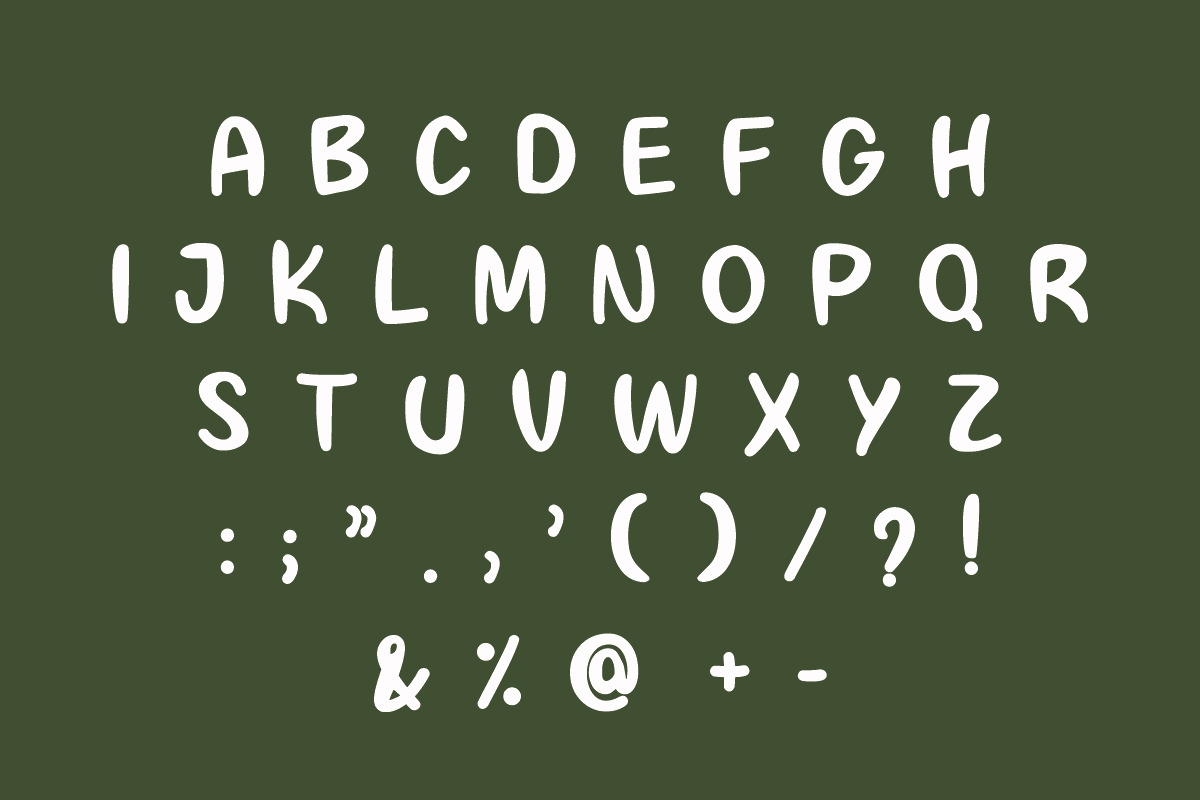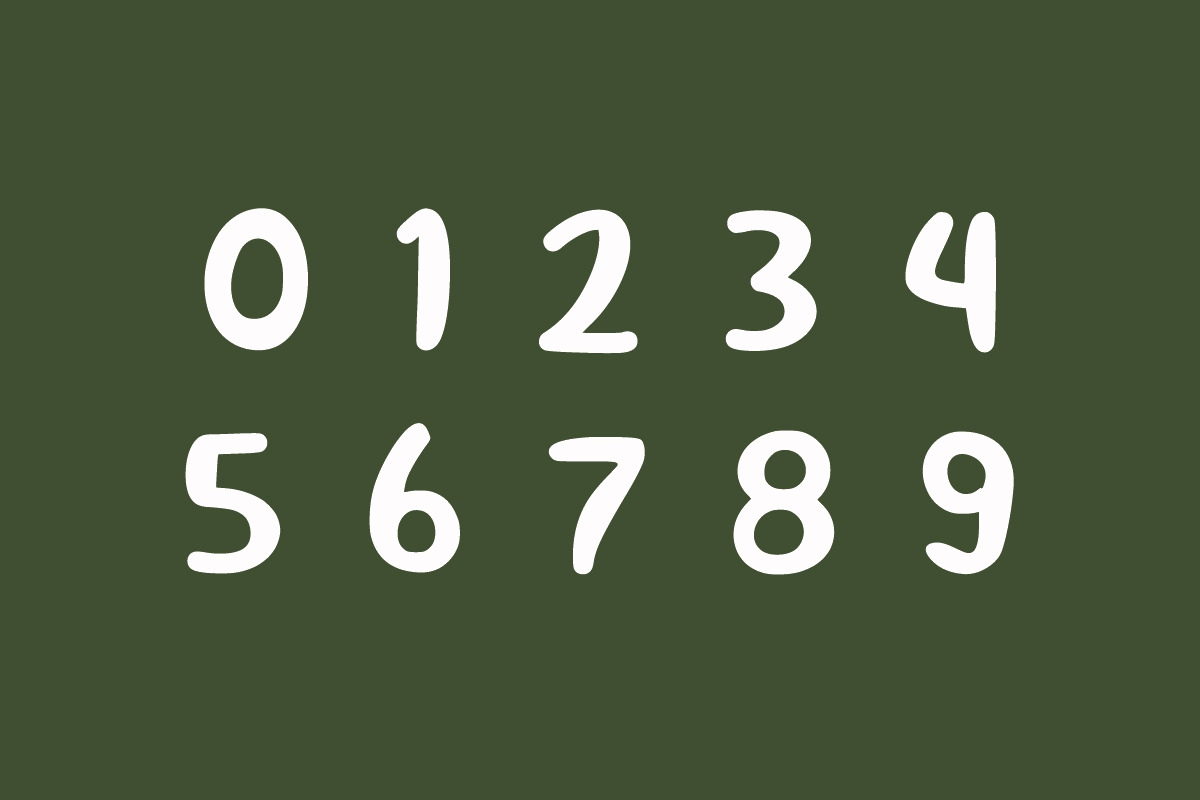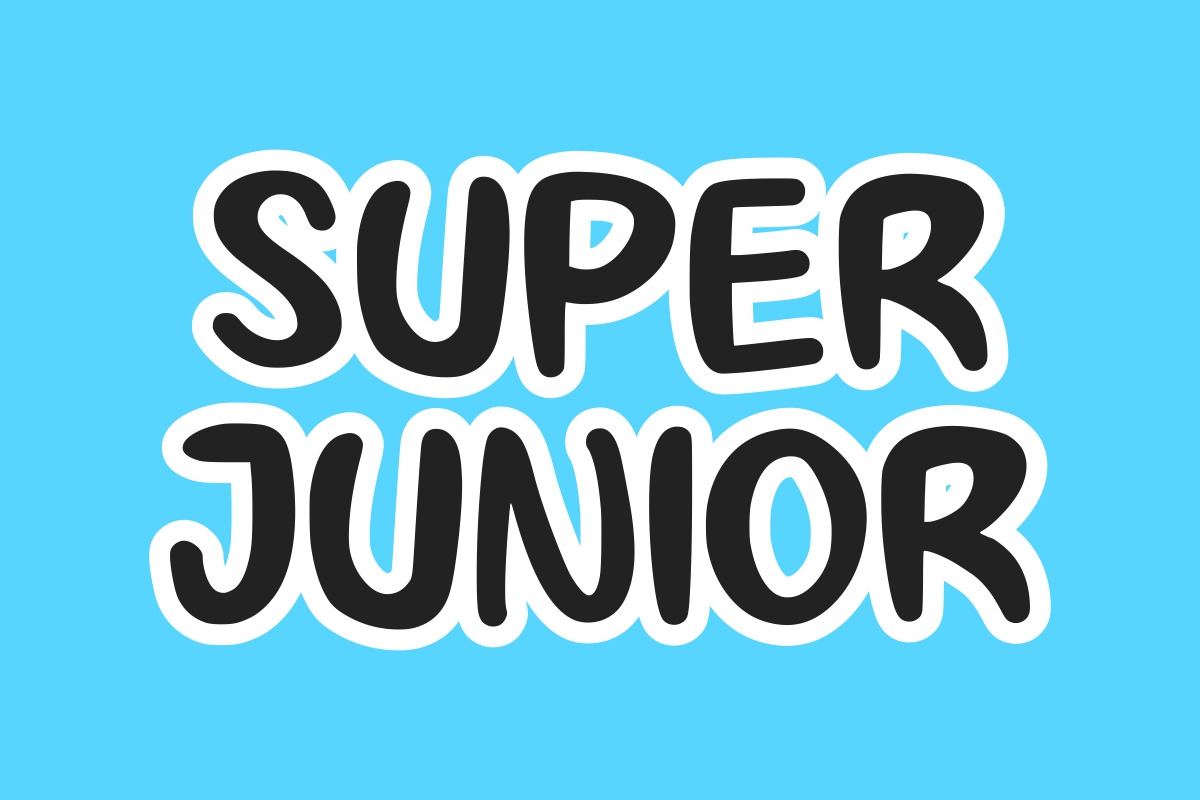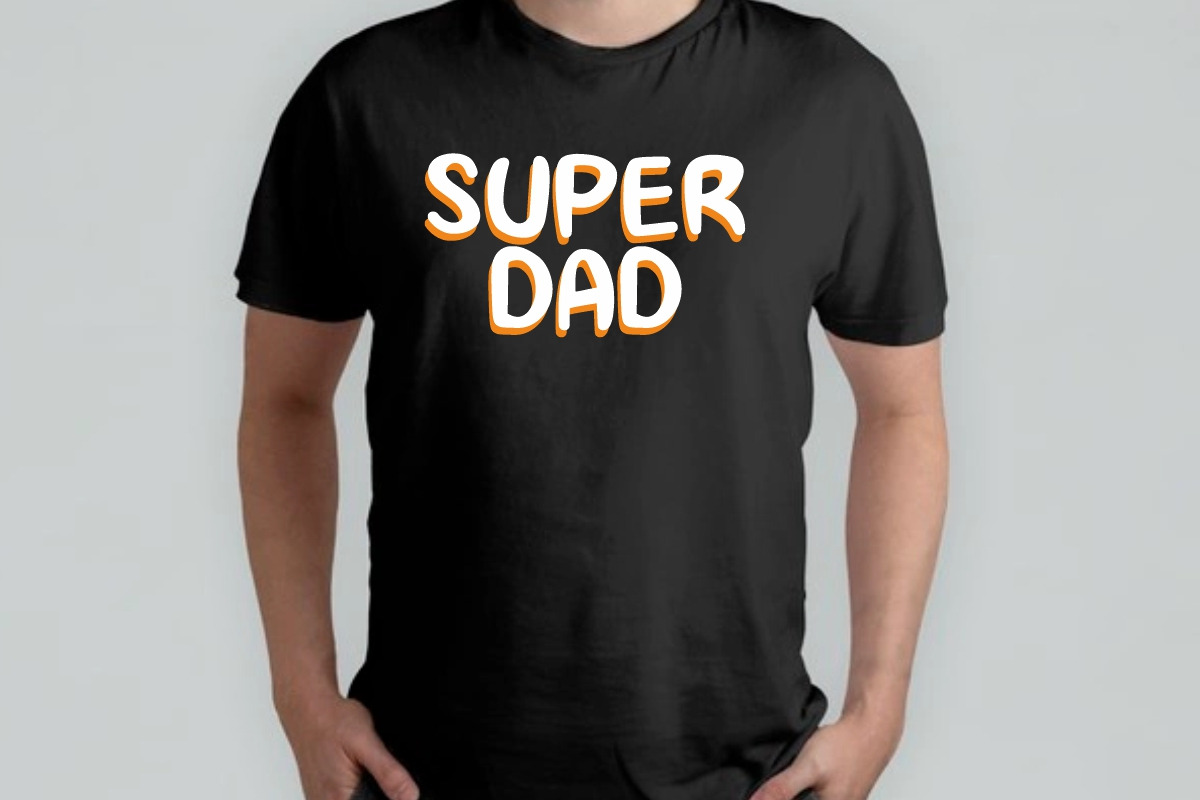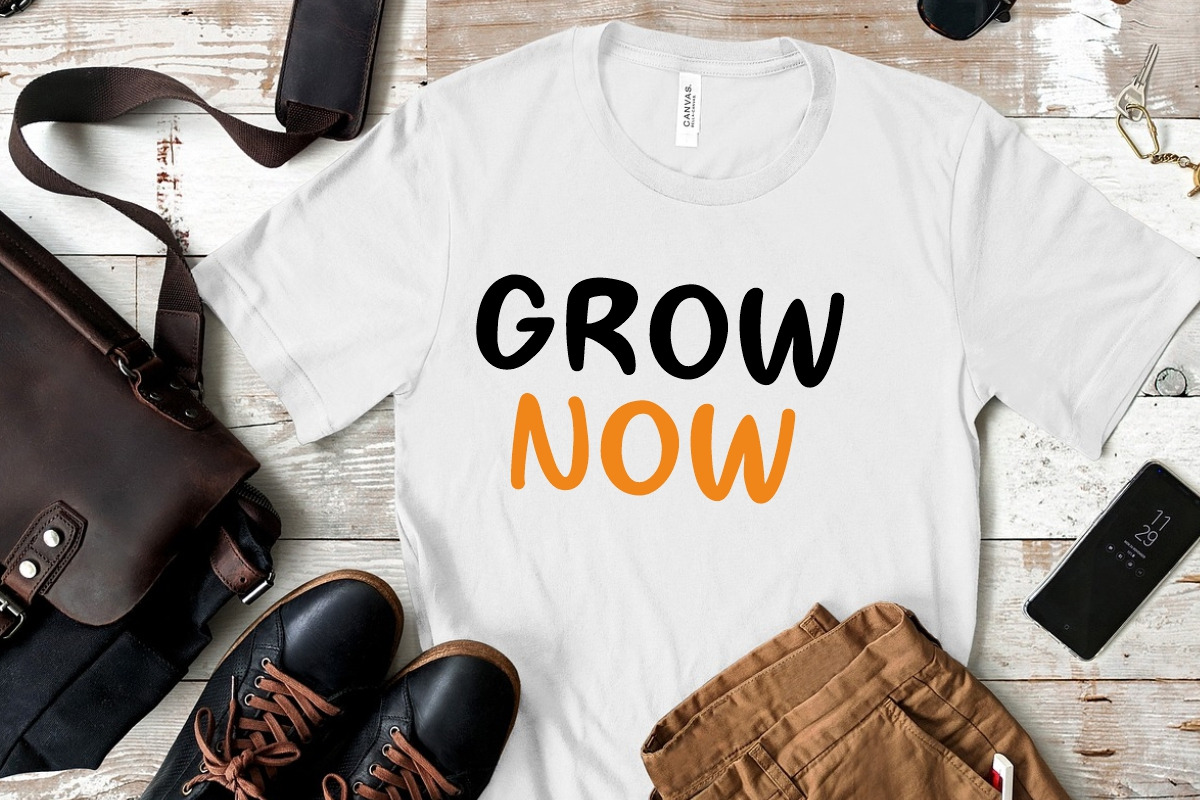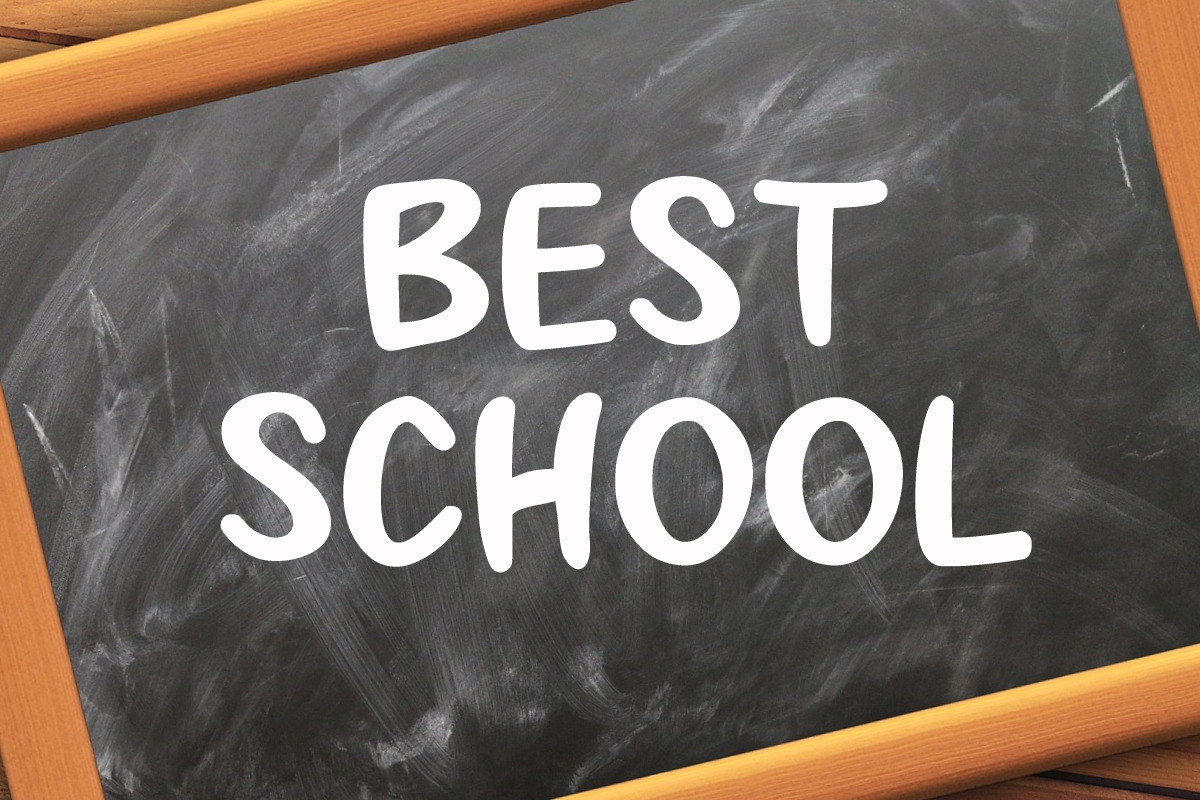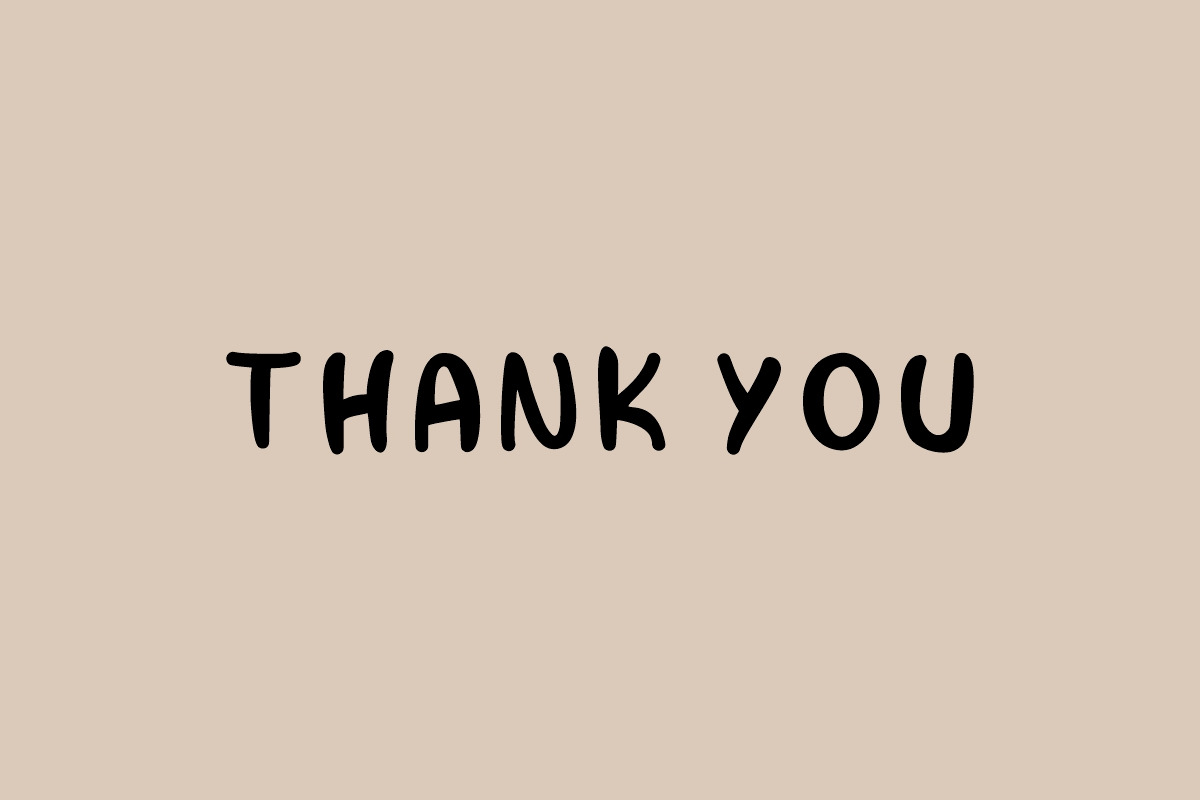
Funny Smile
Funny Smile is a cute, simple and friendly handwritten font. Its informal style and casual vibe will make this font a go-to choice for each of your creations that require a relaxed touch. It is suitable for any product packaging, invitation, quote, t-shirt, label, posters, logos that you wish to develop!